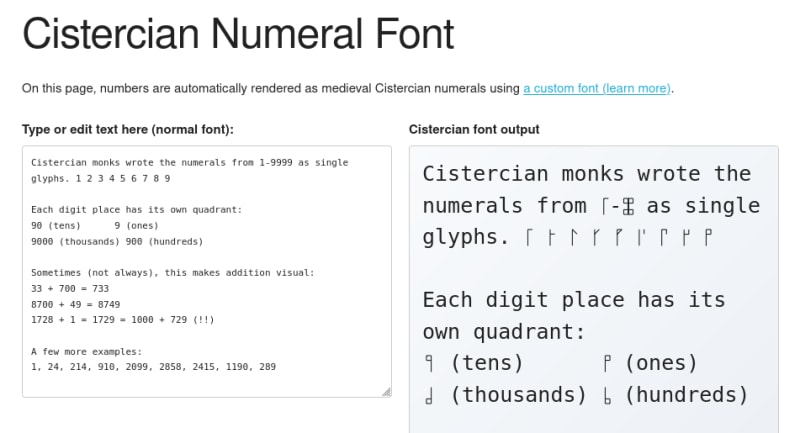
A custom font implementation that automatically converts standard numbers into medieval Cistercian numerals, where monks represented numbers 1-9999 as single glyphs. Each digit occupies a specific quadrant (ones, tens, hundreds, thousands), making some arithmetic operations visually intuitive. The font supports copy-paste and browser search functionality.